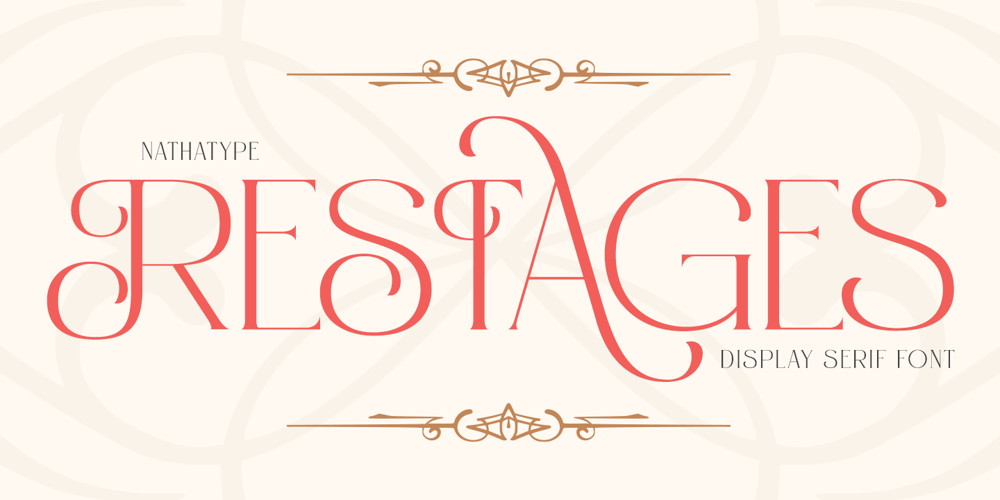
Restages Font Family was designed by Donis Miftahudin and published by Nathatype. Restages contains 1 styles and family package options. Large font sizes are often hard for the eyes to see and difficult to read. As a consequence, you have to give a lot of extra effort just to find out the right, legible font type with a great weight for your brand.Restages is a capitalized display serif font with less thickness for an effortless readability. This font type is perfect for formal contents because of its stylish, elegant characters to strengthen the impressions delivered. Furthermore, this font is truly legible due to its simple, regular serif forms to ease readers to recognize each letter correctly. Make use of the font features available here.Features: Stylistic Sets Multilingual Supports PUA Encoded Numerals and Punctuations Restages fits best for various design projects, such as brandings, posters, banners, logos, magazine covers, quotes, headings, printed products, invitations, name cards, merchandise, social media, etc. Find out more ways to use this font by taking a look at the font preview.Thanks for purchasing our fonts. Hopefully, you have a great time using our font. Feel free to contact us anytime for further information or when you have trouble with the font. Thanks a lot and happy designing.